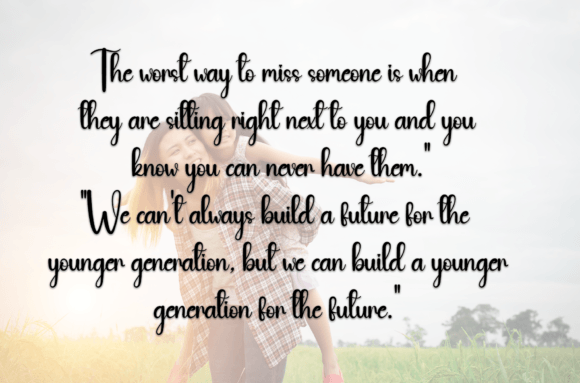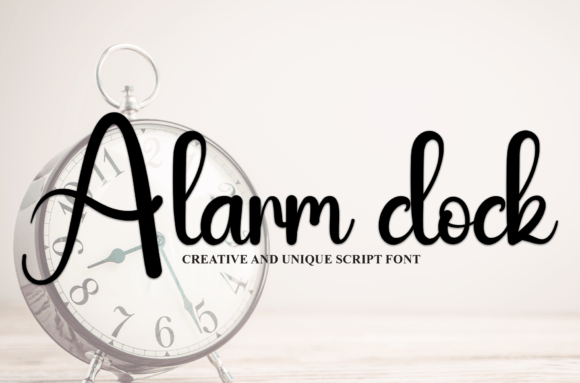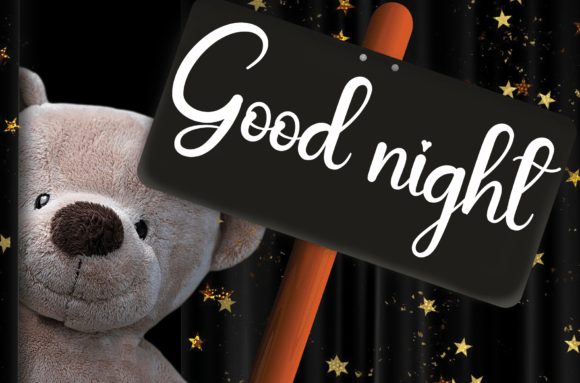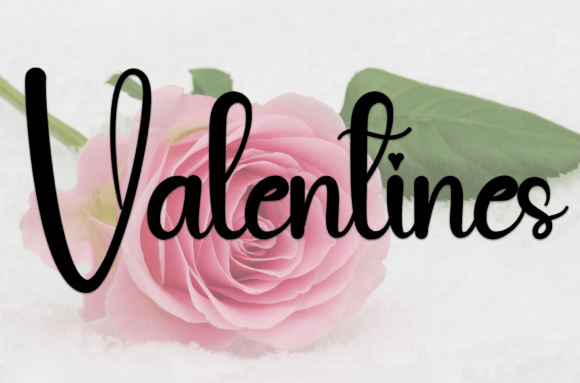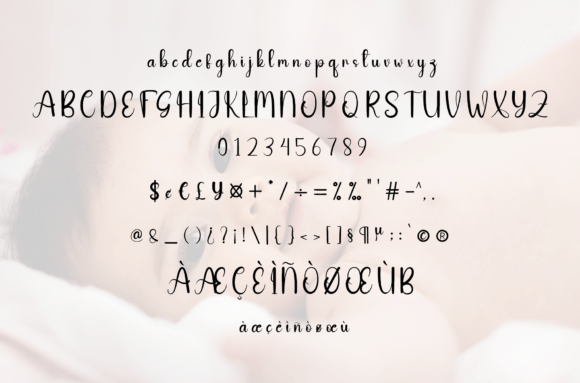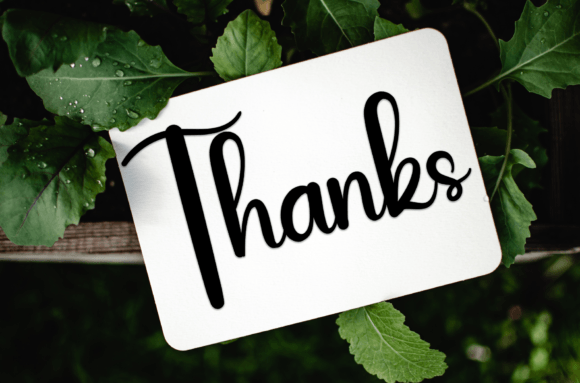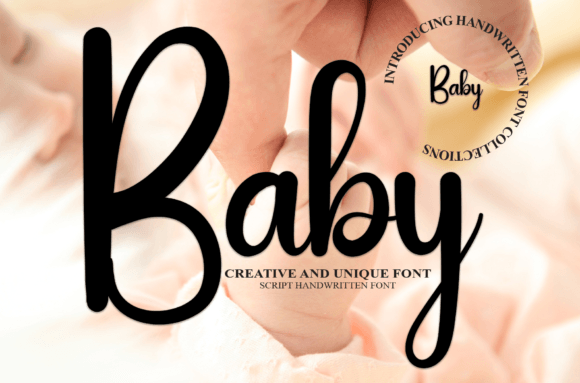
Baby Font: The Sweet and Friendly Handwritten Font for Your Creative Projects
Are you looking for a font that can add a touch of warmth and personality to your designs? Look no further than Baby Font, a sweet and friendly handwritten font that’s perfect for a variety of creative projects. In this article, we’ll take a closer look at Baby Font, its features, and how you can use it to create stunning designs that capture the hearts of your audience.
What is Baby Font?
Baby Font is a beautiful, handwritten font that’s designed to bring a sense of joy and playfulness to your designs. With its creative and cute style, this font is ideal for writing wedding invitations, cards, or any other design that might need a fun touch. Whether you’re a designer, crafter, or DIY enthusiast, Baby Font is a versatile font that can help you create unique and eye-catching designs.
Features of Baby Font
Baby Font comes with a range of features that make it perfect for a variety of design projects. Some of its key features include:
- Handwritten style: Baby Font has a beautiful, handwritten style that’s perfect for creating personal and heartfelt designs.
- Cute and playful: This font has a playful and cute style that’s sure to capture the hearts of your audience.
- Versatile: Baby Font can be used for a variety of design projects, including wedding invitations, cards, posters, and more.
- Easy to read: Despite its playful style, Baby Font is easy to read, making it perfect for designs that require a clear and legible font.
How to Use Baby Font in Your Designs
Using Baby Font in your designs is easy. Here are a few tips to get you started:
- Wedding invitations: Baby Font is perfect for creating beautiful and unique wedding invitations that capture the joy and excitement of the special day.
- Cards and stationery: This font is also great for creating cards and stationery that require a personal touch.
- Posters and flyers: Baby Font can add a playful touch to your posters and flyers, making them stand out from the crowd.
- Digital designs: This font can also be used for digital designs, such as social media graphics, blog posts, and more.
Tips for Getting the Most Out of Baby Font
Here are a few tips for getting the most out of Baby Font:
- Experiment with different colors: Baby Font looks great in a variety of colors, so don’t be afraid to experiment and find the perfect color for your design.
- Pair it with other fonts: This font pairs well with other fonts, so try combining it with a bold font for headings and a clean font for body text.
- Use it for titles and headings: Baby Font is perfect for titles and headings, where its playful style can really shine.
Baby Font is a sweet and friendly handwritten font that’s perfect for adding a touch of warmth and personality to your designs. With its creative and cute style, this font is ideal for a variety of design projects, from wedding invitations to digital designs. Whether you’re a designer, crafter, or DIY enthusiast, Baby Font is a versatile font that can help you create unique and eye-catching designs that capture the hearts of your audience.